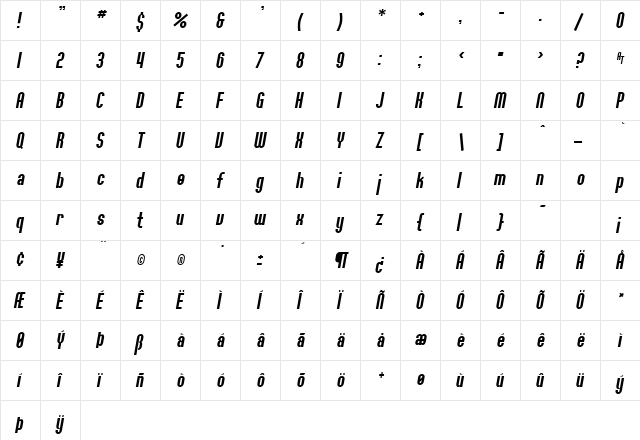
SF Willamette Italic Font Preview
SF Willamette Italic
Design Context for SF Willamette Typeface
SF Willamette takes a measured approach to typography — its balanced proportions and neutral character make it a reliable workhorse for both digital and print work. Its italic angle brings a sense of urgency and motion to the letterforms.